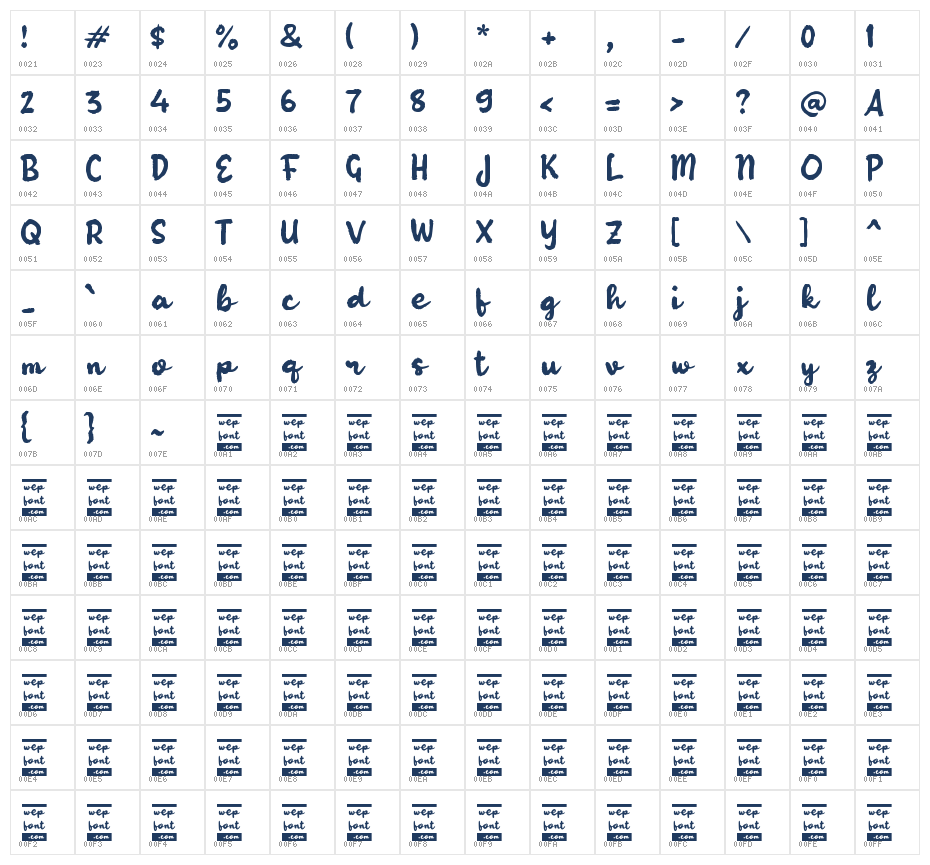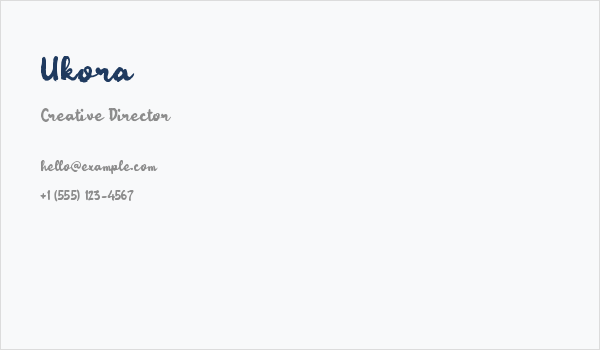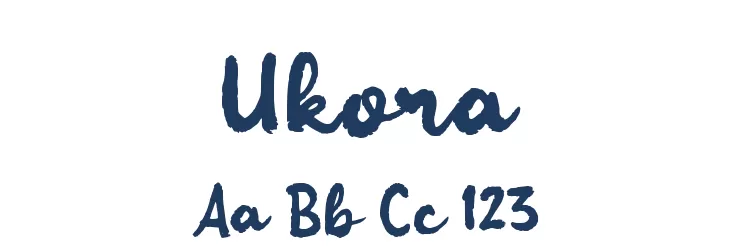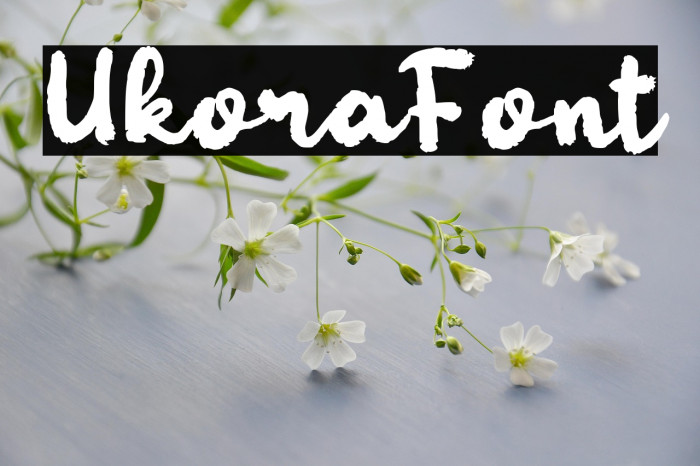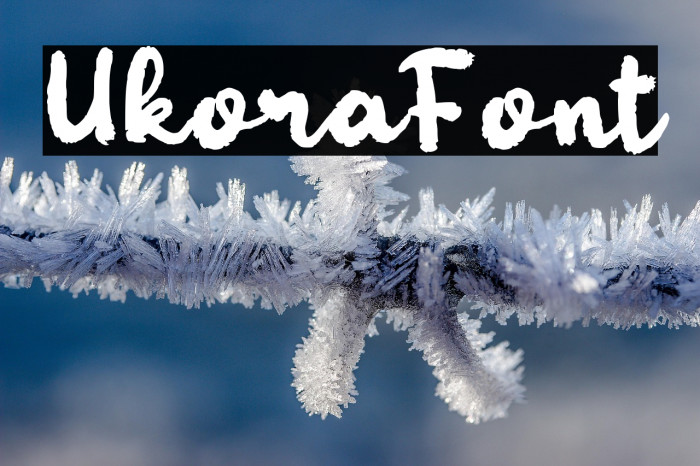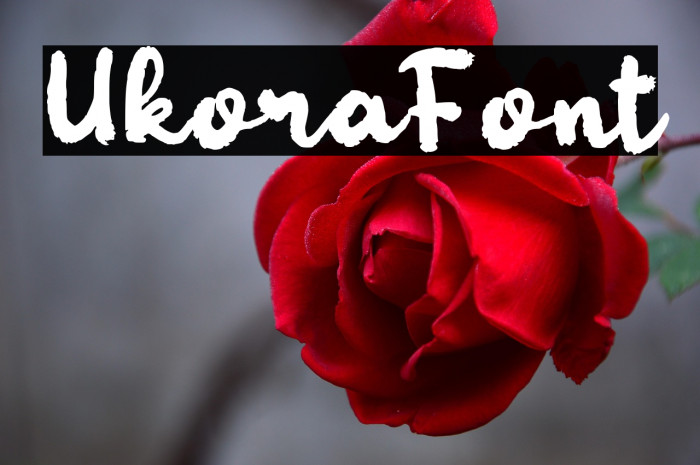
Ukora Font
Ukora Description
A playful, handwritten style font with a casual and friendly appearance, featuring irregular strokes and a slightly textured look.
| Overall Style | Casual, Playful, Friendly |
| Use Case | Headlines, Logos, Greeting cards, Children's products |